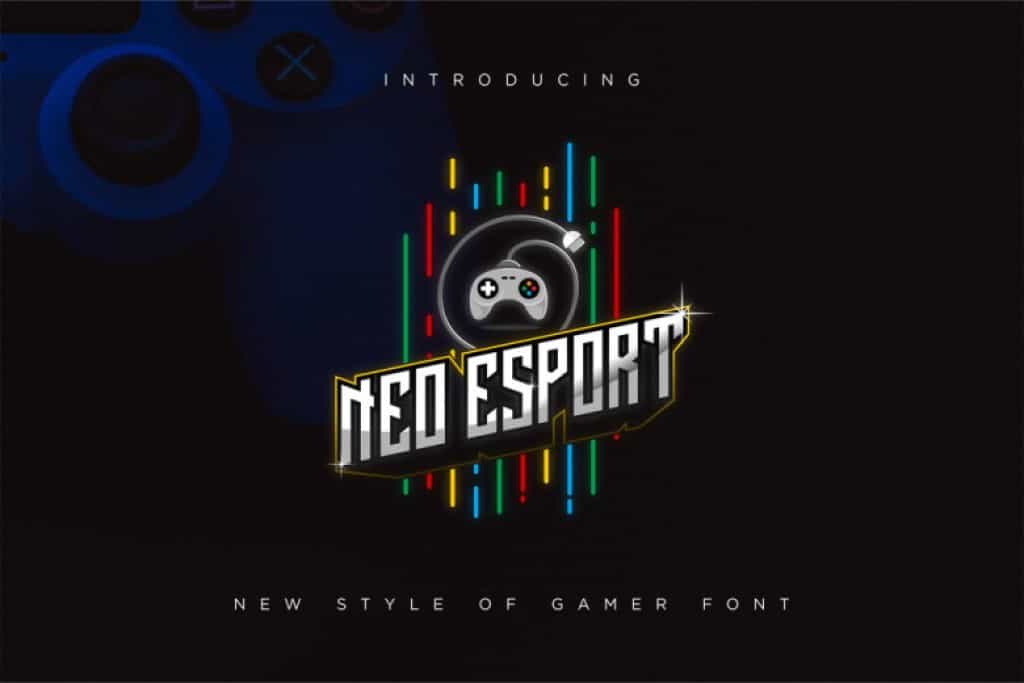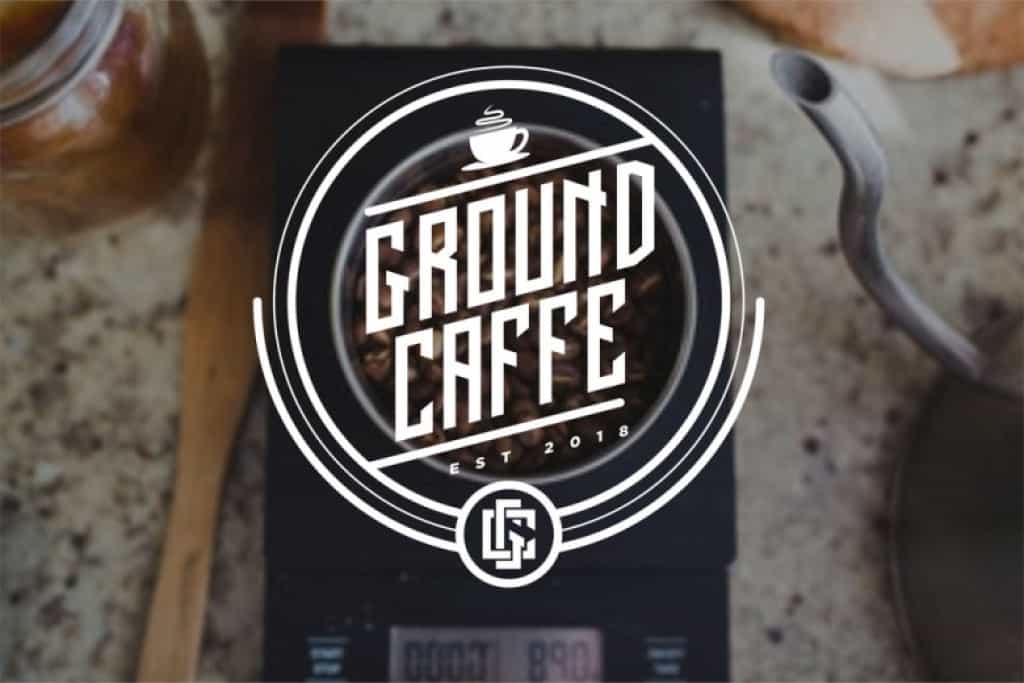
Neo Esport is an energetic, sport display typeface that is very optimal for logos, posters, games, quotes, and other one-of-a-kind designs in the e-sports niche.